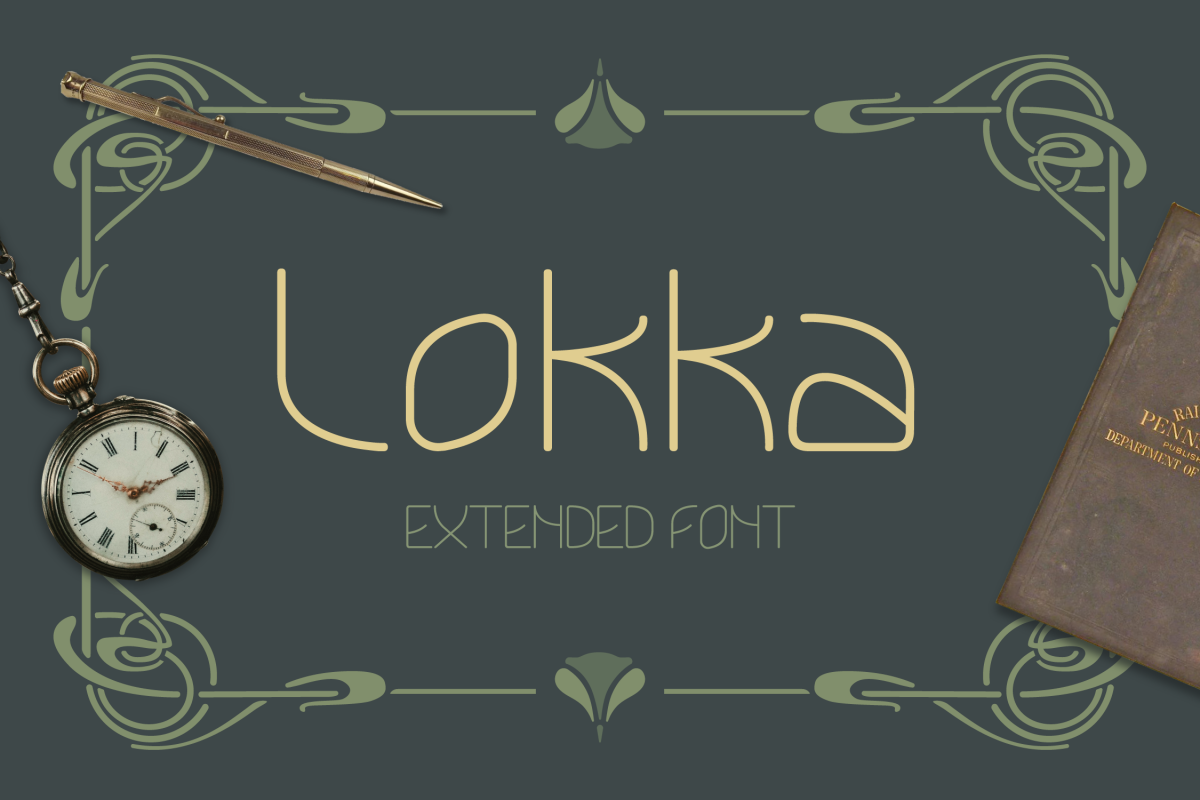
Lokka Extended Font
Lokka
Lokka Extended Font is a geometric display font with a strong construction underneath and it has modern retro look. Lokka has regular and bold versions. It works well for short descriptions, logo and brand identity designs, packaging, headlines, etc.Uppercase and lowercase letters, numbers, symbols and extended characters included.Files included